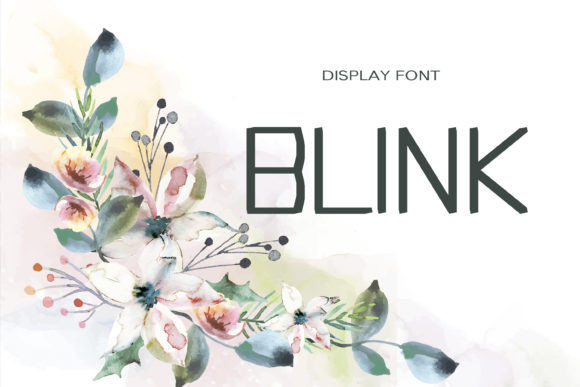
The Blink Font: A Simple yet Powerful Design Companion
I’ll never forget the time I was working on a project for a client who needed a clean and modern font to represent their brand. I spent hours scouring the internet for the perfect one, but nothing seemed quite right. That was until I stumbled upon the Blink font. Its simplicity and elegance immediately caught my eye, and I knew I had found what I was looking for. In this article, I’ll share my experience with the Blink font, its features, and how to make the most of it in your designs.
A Personal Review of Blink Font
I’ve had the pleasure of working with the Blink font on several projects, and here’s what I think:
- ✨ Clean and neat style: The Blink font has a minimalist aesthetic that’s perfect for designs that require a touch of sophistication.
- ✅ High legibility: The font’s clear and simple design makes it easy to read, even at small sizes.
- 💡 Versatility: Blink can be used in a variety of design contexts, from digital displays to print materials.
While the Blink font is excellent, it’s not without its quirks:
- 🤔 Limited glyphs: The font has a limited character set, which may not be suitable for designs that require a wide range of special characters.
- ⚠️ Not suitable for body text: While Blink is great for headlines and titles, it may not be the best choice for body text due to its clean and minimalist design.
The Story Behind Blink Font
The Blink font was designed by a team of typographers who wanted to create a simple and natural display font that could be used in a variety of design contexts. Inspired by modernist design principles, the Blink font is characterized by its clean lines, simple shapes, and elegant curves.
| What is the Blink font? | The Blink font is a simple and natural display font designed for use in a variety of design contexts. |